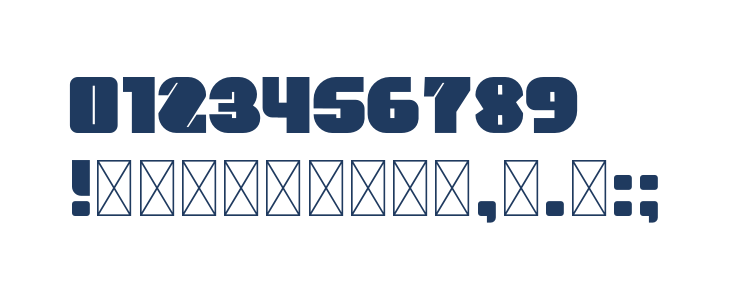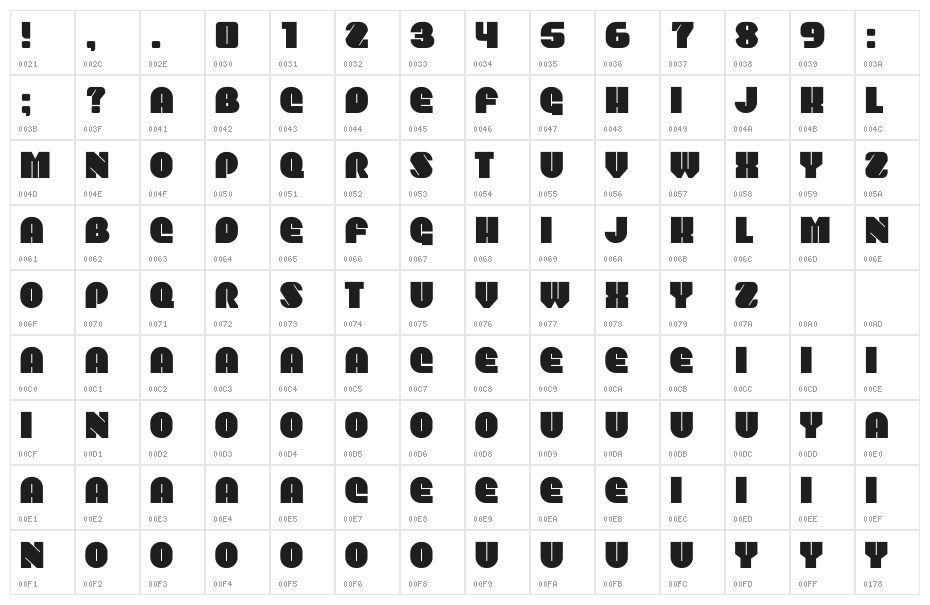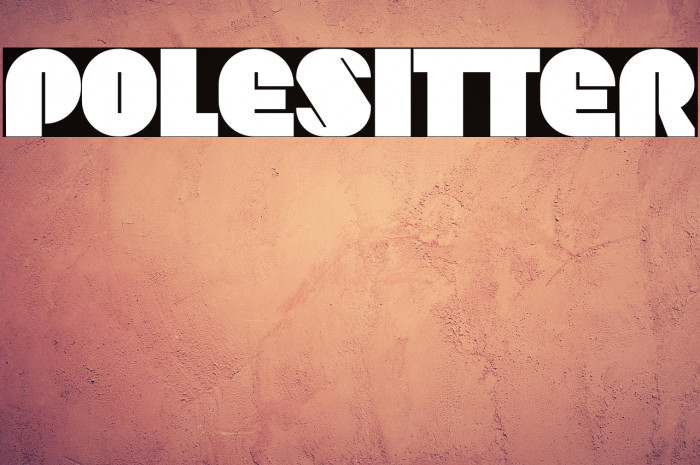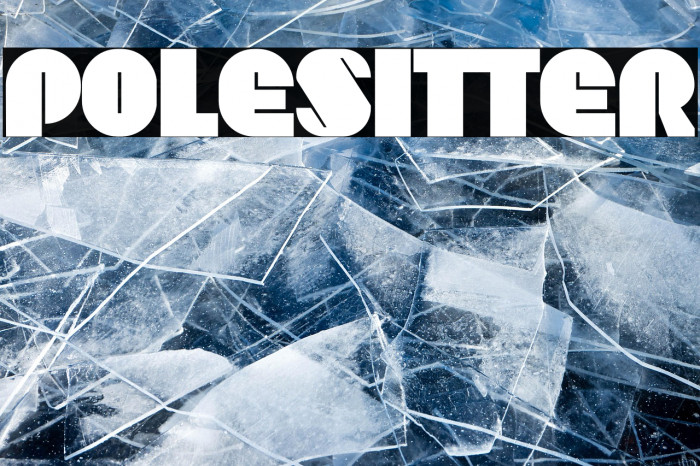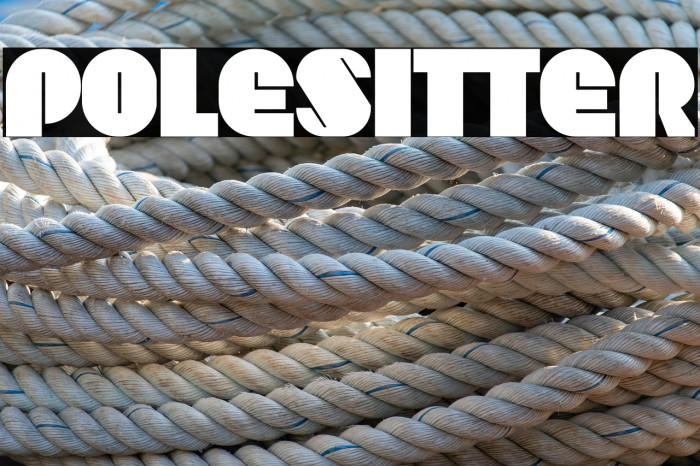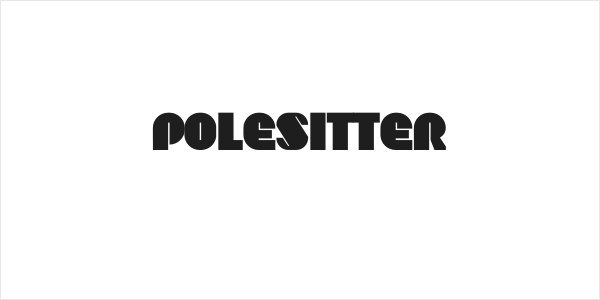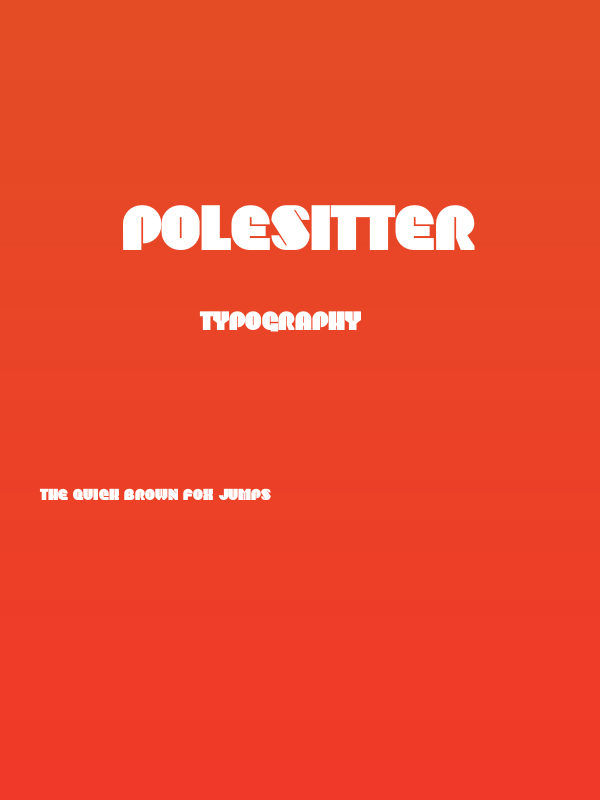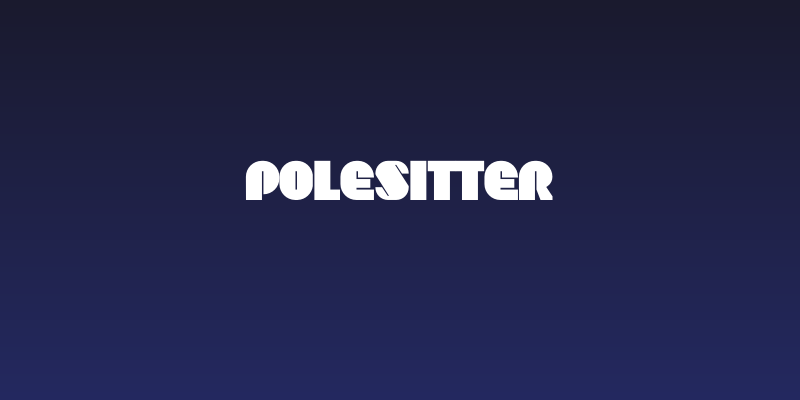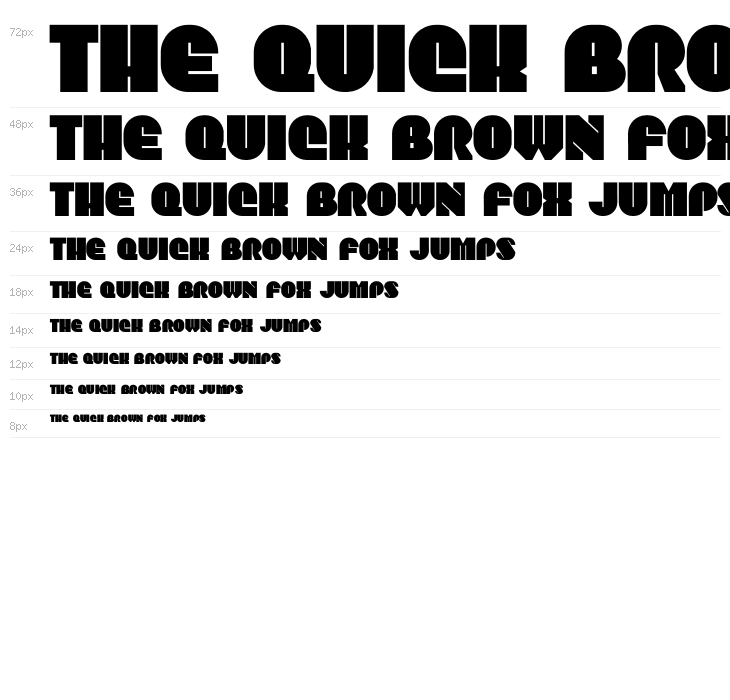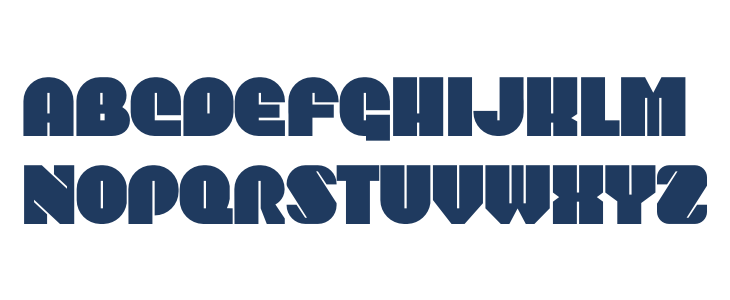
Polesitter Font
Polesitter Description
This font features a bold, geometric design with a strong emphasis on symmetry and block-like shapes. The characters are constructed with sharp angles and straight lines, creating a modern and industrial feel. The uppercase letters are particularly striking, with their solid forms and minimalistic style. The numerals and special characters maintain the same boldness and geometric precision, ensuring consistency across all elements. This font is highly legible and commands attention, making it ideal for impactful design projects.
| Proposed Projects | Ideal for branding, posters, headlines, and any design project that requires a strong, modern look. |